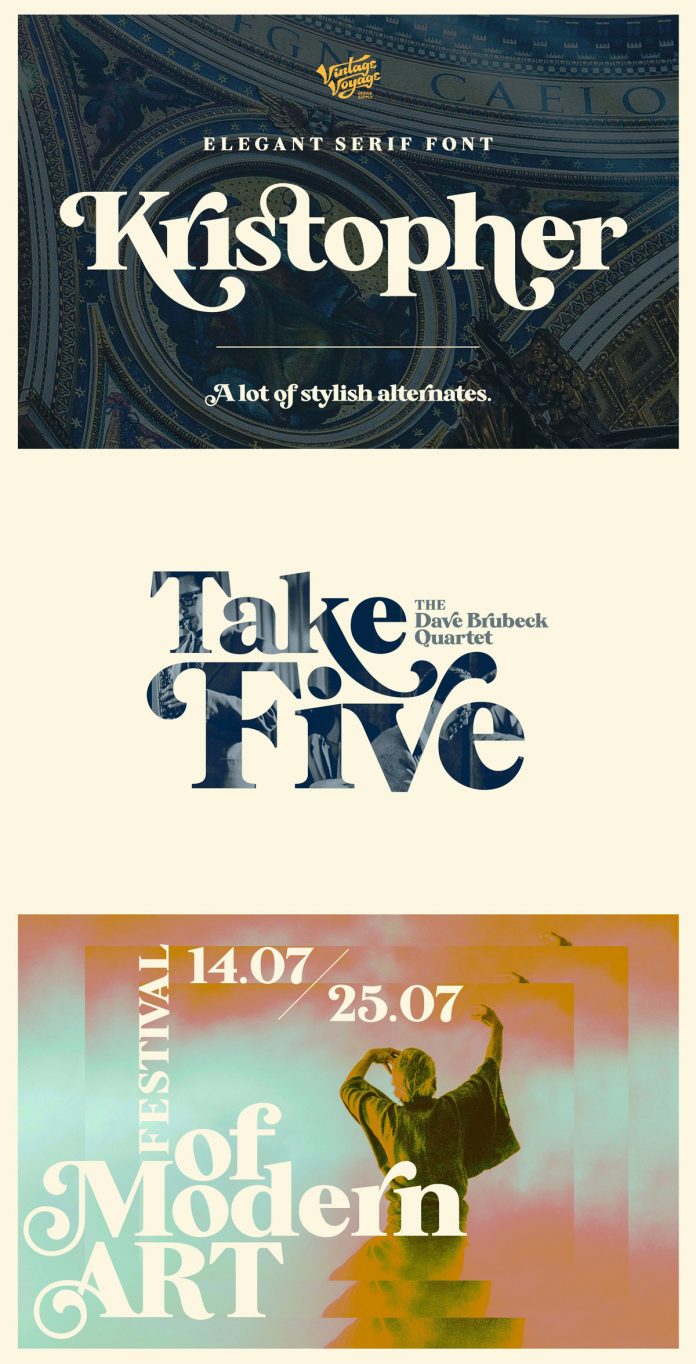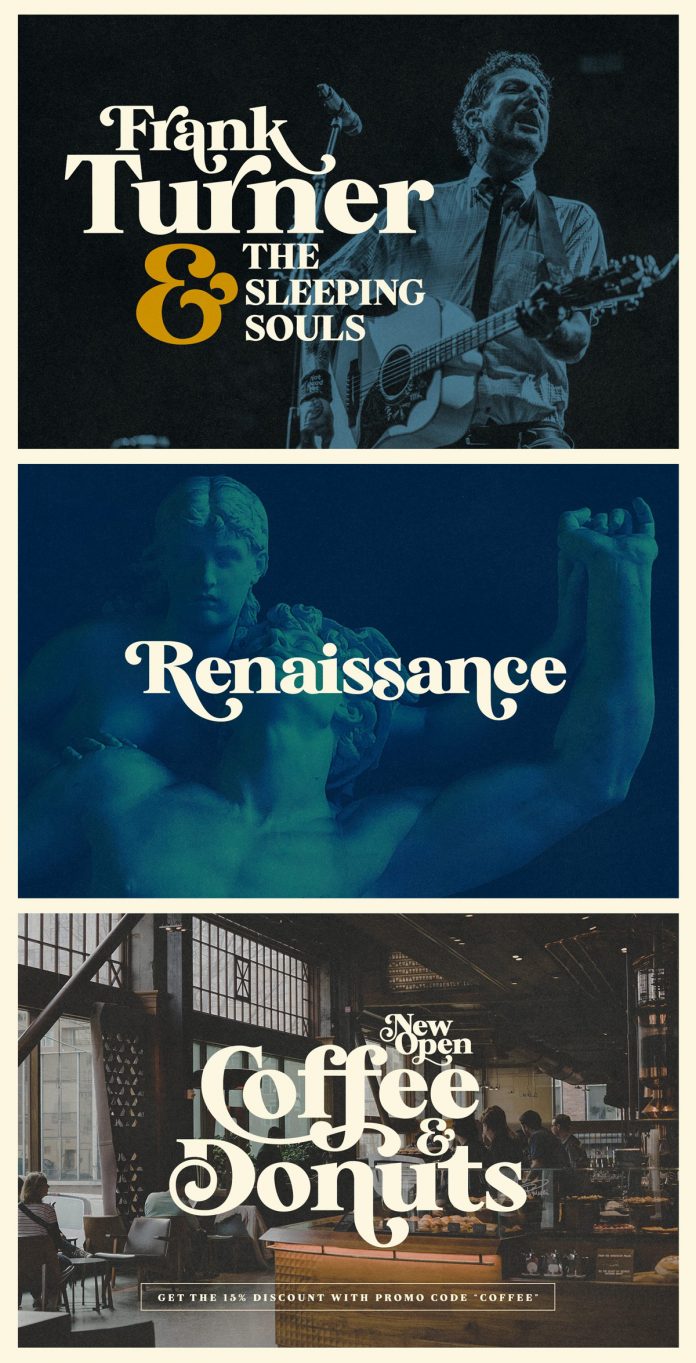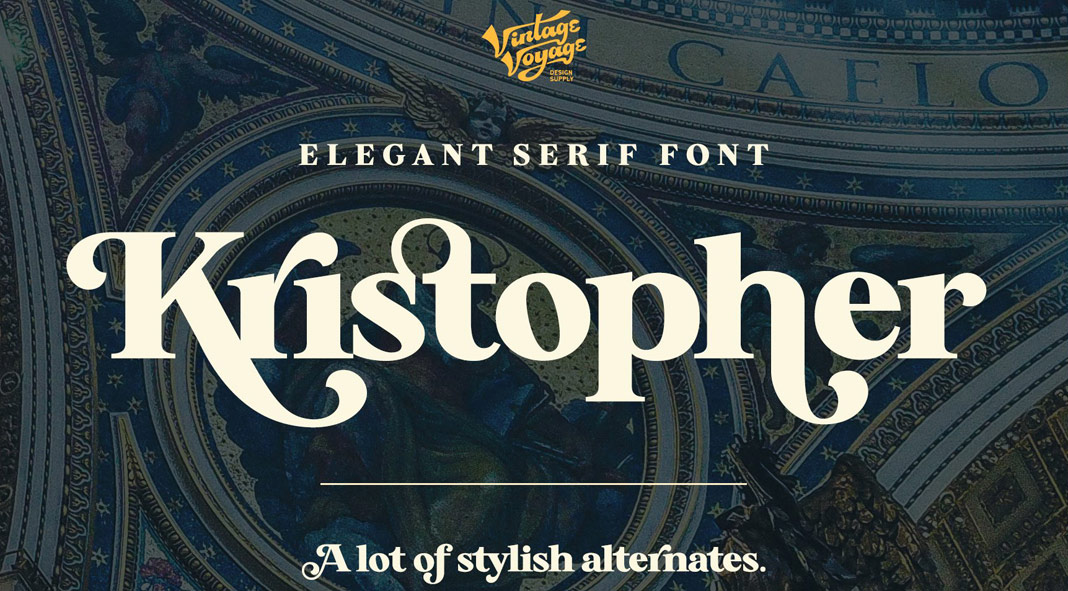
Kristopher, an elegant serif font with contrasting lines and well-balanced curves.
Oh boy, just look at this beauty! Designed by Pavel Korzhenko of Vintage Voyage Design Supply, Kristopher is such an elegant vintage-inspired display font. It is characterized by striking serifs, contrasting lines, and well-balanced curves. The Kristopher font comes with plenty of alternate letters, which give your typographic work a more versatile style. While working with this typeface, it’s fun to play with different compositions of curves and alternates. I think it’s quite unique how this font masterfully blends conservative and classic typography with playful and modern design elements. It’s a great choice for theater designs, coffee shop signage, vinyl covers, posters, magazines, postcards, invitations, etc. Thanks to its great kerning, it looks also great on screen. Hence, it can make eye-catching headlines on your website or blog. The Kristopher font also supports multiple languages including, Czech, Danish, Dutch, English, Estonian, Faroese, Finnish, French, Galician, German, Icelandic, Irish, Italian, Norwegian, Portuguese, Polish, Spanish, Swedish, Swiss German. The download file includes both OTF and TTF. To learn more, just click on one of the following links.